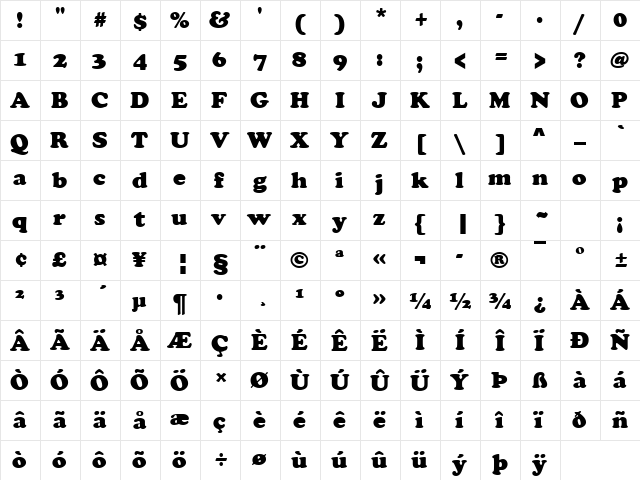
Cooper Becker Black Regular
Design Context for Cooper Becker Black Typeface
Cooper Becker Black offers clean, dependable letterforms without strong stylistic allegiance, making it a practical choice for designers who need flexibility.